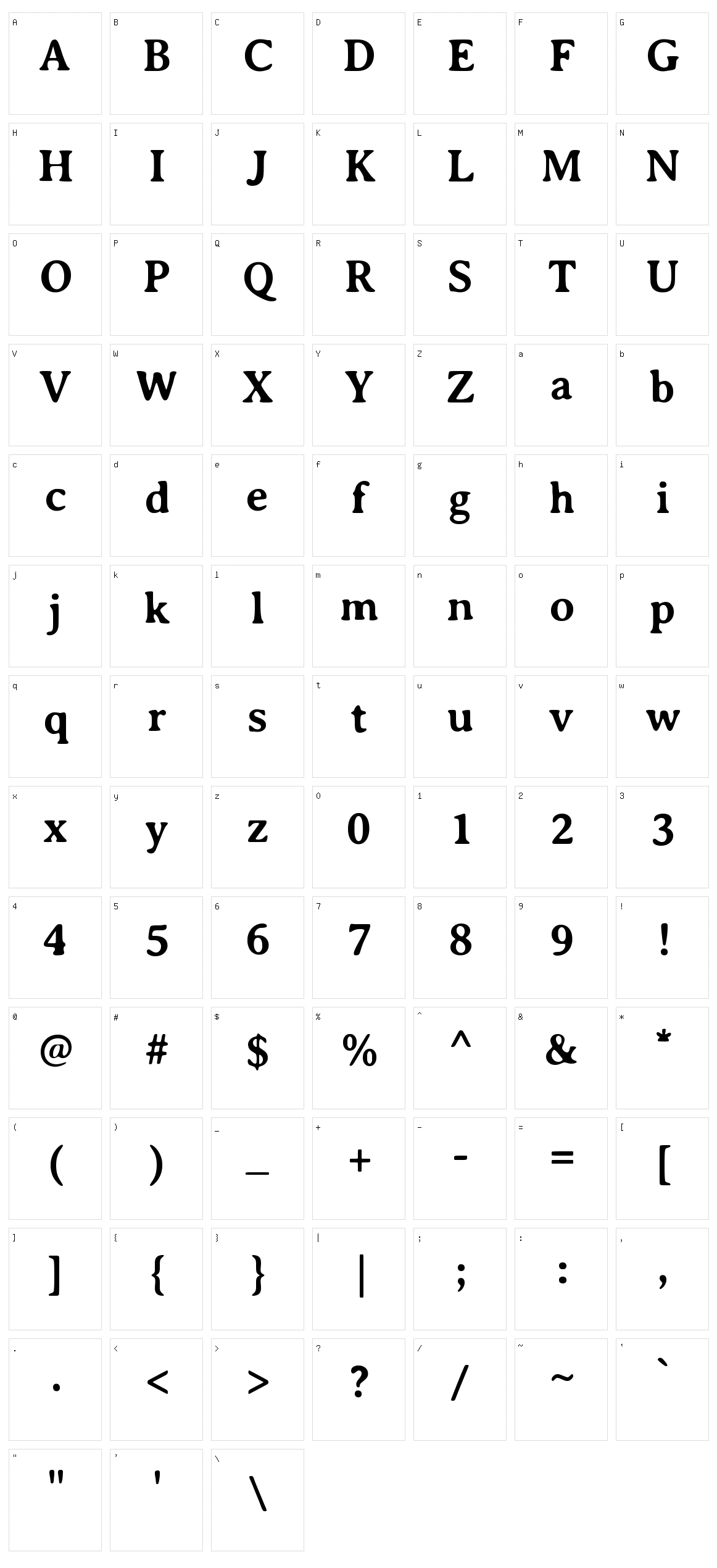
AverÃa Serif font family
AverÃa ("breakdown" or "mechanical damage" in Spanish - related to the root
of the English word "average") is a Unicode typeface family created from the
average of all fonts on the computer of the creator, Dan Sayers. The process
is described at http://iotic.com/averia/. All metrics are the result of an
averaging process. The included glyphs are those that existed in a majority
of the source fonts - which are the following:
AverÃa Serif exists in Regular, Bold, Italic, Bold Italic, Light and Light
Italic styles - based on the serif subset of the 725 fonts on the creator's
computer.